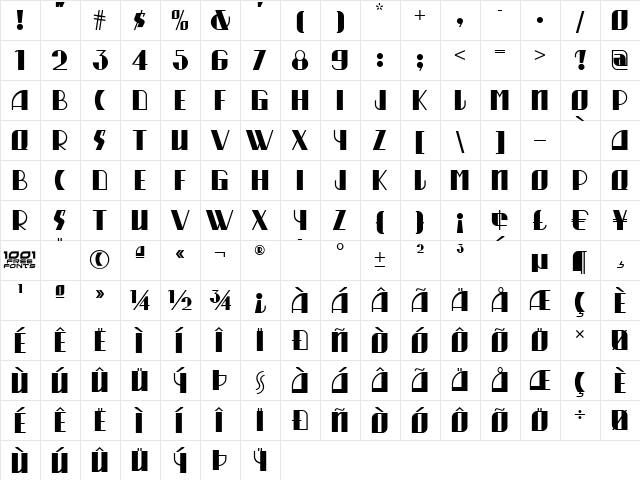
Munchausen NF Regular
| Foundry | Nick's Fonts |
| Designer | Nick Curtis |
Design Context for Munchausen NF Typeface
Munchausen NF is a composed and adaptable typeface that performs quietly and consistently across a wide range of design contexts.